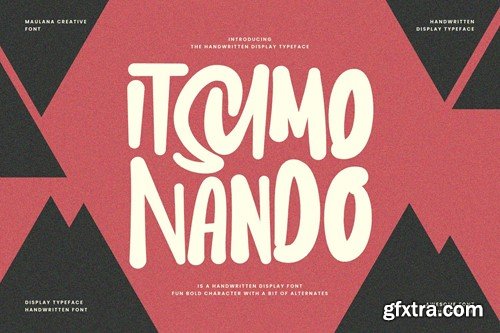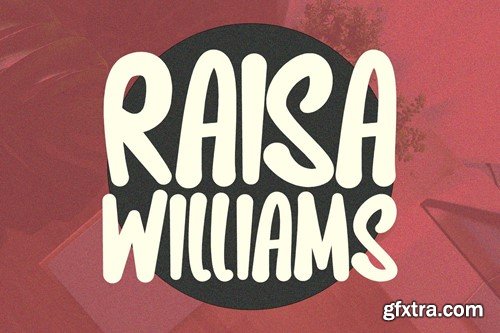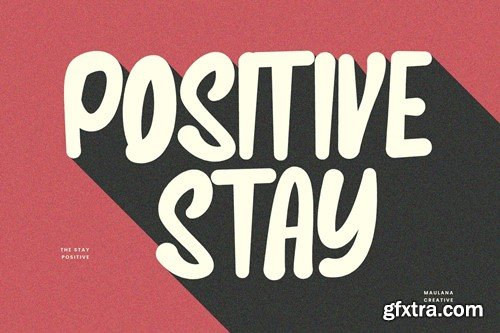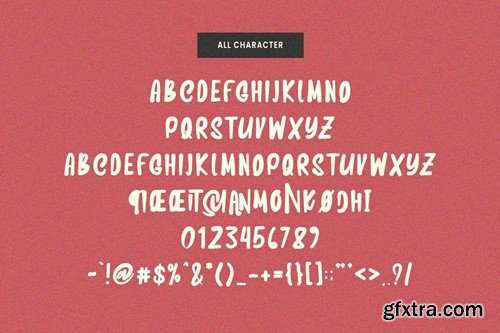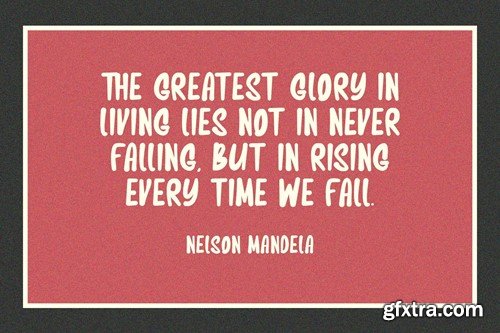
始终保持优雅,Nando Display Font F6QSLU7
Itsumo Nando Display Font
Itsumo Nando display font. With medium soft stroke, fun character with a bit of ligatures and alternates. To give you an extra creative work. Itsumo Nando display font support multilingual more than 100+ language. This font is good for logo design, Social media, Movie Titles, Books Titles, a short text even a long text letter and good for your secondary text font with script or serif. Make a stunning work with Itsumo Nando display font. What you get: Cheers, Maulana Creative